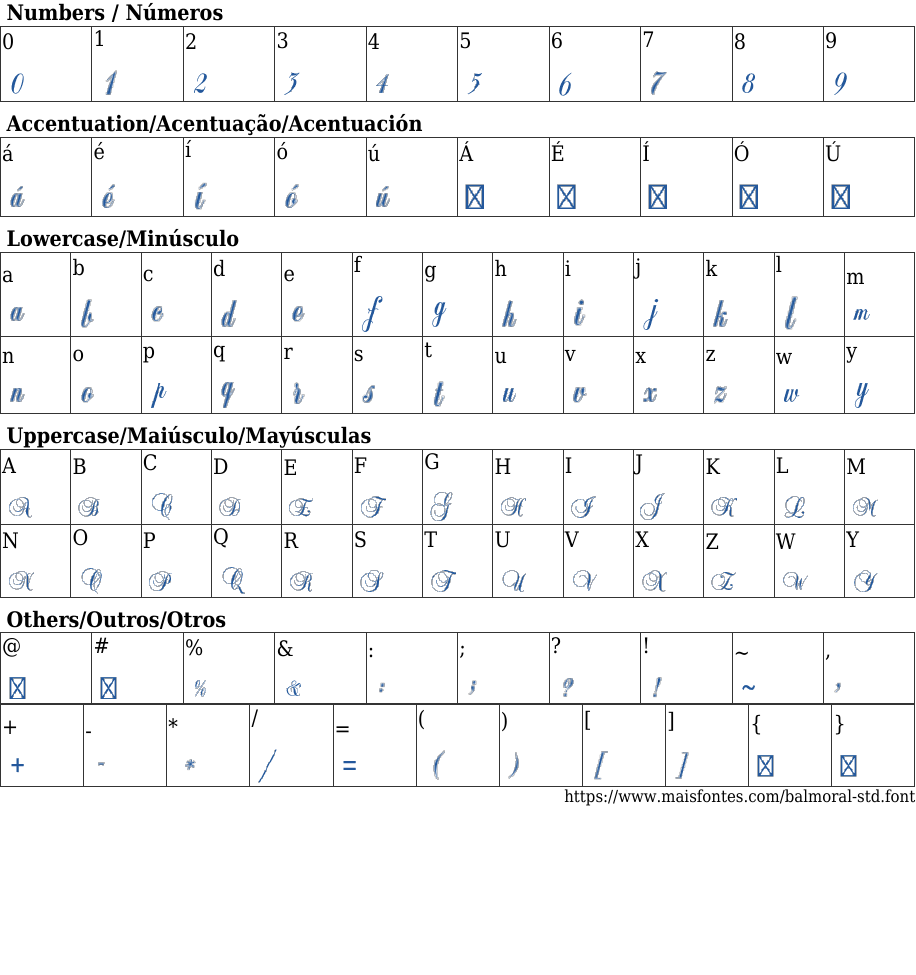
Balmoral Font Generator . Download balmoral d regular for free. Contains language support for west, east, turkish, baltic, and romanian. Renowned british designer martin wait designed balmoral in 1978. Thousands of designers (famous or not) use the image font detection system to find a font or similar free fonts from an image. Installable on pc, mac, linux, ios, and android platforms. View sample text, character map, user rating and review for balmoral d regular Designed by martin wait in 1978, balmoral is a script font release by urw. Generous initial capitals complement the more restrained lowercase. Installable on pc, mac, linux, ios, and android platforms. Discover the free balmoral font at free font download ! Discover the free balmoral std regular font at free font download !
Discover the free balmoral font at free font download ! Designed by martin wait in 1978, balmoral is a script font release by urw. Generous initial capitals complement the more restrained lowercase. View sample text, character map, user rating and review for balmoral d regular Renowned british designer martin wait designed balmoral in 1978. Installable on pc, mac, linux, ios, and android platforms. Discover the free balmoral std regular font at free font download ! Thousands of designers (famous or not) use the image font detection system to find a font or similar free fonts from an image. Contains language support for west, east, turkish, baltic, and romanian. Installable on pc, mac, linux, ios, and android platforms.
Balmoral Font Generator Contains language support for west, east, turkish, baltic, and romanian. Renowned british designer martin wait designed balmoral in 1978. View sample text, character map, user rating and review for balmoral d regular Thousands of designers (famous or not) use the image font detection system to find a font or similar free fonts from an image. Generous initial capitals complement the more restrained lowercase. Contains language support for west, east, turkish, baltic, and romanian. Discover the free balmoral font at free font download ! Discover the free balmoral std regular font at free font download ! Download balmoral d regular for free. Installable on pc, mac, linux, ios, and android platforms. Designed by martin wait in 1978, balmoral is a script font release by urw.
BALMORAL 72pt/60pt/42pt/36pt Letragraphica Letraset Vintage Dry Rub on Balmoral Font Generator Discover the free balmoral std regular font at free font download ! Discover the free balmoral font at free font download ! Installable on pc, mac, linux, ios, and android platforms. Designed by martin wait in 1978, balmoral is a script font release by urw. Installable on pc, mac, linux, ios, and android platforms. Contains language support for west, east,. Balmoral Font Generator.
Balmoral LET Plain truetype font Balmoral Font Generator Installable on pc, mac, linux, ios, and android platforms. Download balmoral d regular for free. Discover the free balmoral font at free font download ! Designed by martin wait in 1978, balmoral is a script font release by urw. Discover the free balmoral std regular font at free font download ! Contains language support for west, east, turkish, baltic, and. Balmoral Font Generator.
Identifont Balmoral Font Generator Installable on pc, mac, linux, ios, and android platforms. View sample text, character map, user rating and review for balmoral d regular Designed by martin wait in 1978, balmoral is a script font release by urw. Discover the free balmoral std regular font at free font download ! Contains language support for west, east, turkish, baltic, and romanian. Thousands of. Balmoral Font Generator.
Balmoral D Regular Download for free at Free Fonts Balmoral Font Generator Designed by martin wait in 1978, balmoral is a script font release by urw. Discover the free balmoral std regular font at free font download ! Download balmoral d regular for free. Installable on pc, mac, linux, ios, and android platforms. Generous initial capitals complement the more restrained lowercase. Discover the free balmoral font at free font download ! Thousands. Balmoral Font Generator.
T.26 Digital Type Foundry Fonts Balmoral Font Generator Discover the free balmoral std regular font at free font download ! Generous initial capitals complement the more restrained lowercase. Discover the free balmoral font at free font download ! Download balmoral d regular for free. Installable on pc, mac, linux, ios, and android platforms. Thousands of designers (famous or not) use the image font detection system to find a. Balmoral Font Generator.
Download free Balmoral ICG font, free BalmoralICG.ttf Regular font for Balmoral Font Generator Generous initial capitals complement the more restrained lowercase. Contains language support for west, east, turkish, baltic, and romanian. View sample text, character map, user rating and review for balmoral d regular Discover the free balmoral std regular font at free font download ! Designed by martin wait in 1978, balmoral is a script font release by urw. Installable on pc,. Balmoral Font Generator.
Balmoral font Wedding calligraphy, Hand lettering, Modern calligraphy Balmoral Font Generator Contains language support for west, east, turkish, baltic, and romanian. Thousands of designers (famous or not) use the image font detection system to find a font or similar free fonts from an image. Discover the free balmoral font at free font download ! Installable on pc, mac, linux, ios, and android platforms. Renowned british designer martin wait designed balmoral in. Balmoral Font Generator.
Balmoral Com Fonts Balmoral Font Generator Contains language support for west, east, turkish, baltic, and romanian. Download balmoral d regular for free. Installable on pc, mac, linux, ios, and android platforms. Generous initial capitals complement the more restrained lowercase. Designed by martin wait in 1978, balmoral is a script font release by urw. View sample text, character map, user rating and review for balmoral d regular. Balmoral Font Generator.
Balmoral Font YouWorkForThem Balmoral Font Generator Generous initial capitals complement the more restrained lowercase. View sample text, character map, user rating and review for balmoral d regular Discover the free balmoral std regular font at free font download ! Contains language support for west, east, turkish, baltic, and romanian. Designed by martin wait in 1978, balmoral is a script font release by urw. Installable on pc,. Balmoral Font Generator.